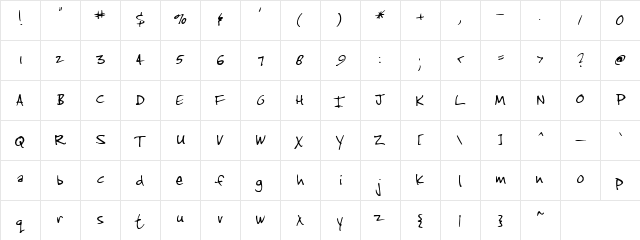
Author Regular
Design Context for Author Typeface
Author is a composed and adaptable typeface that performs quietly and consistently across a wide range of design contexts.